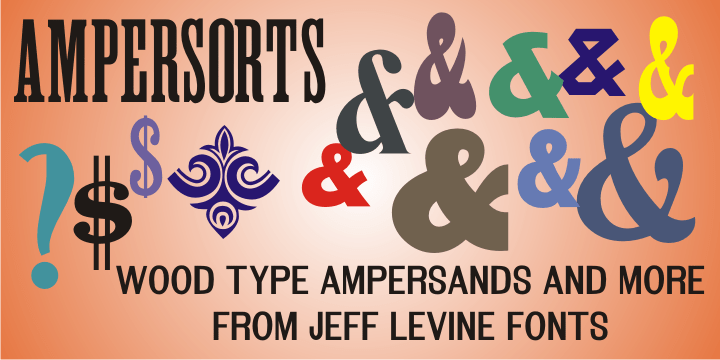
Ampersorts
Ampersorts JNL is a collection of many wood type ampersands along with a smattering of question marks, exclamation points, dollar signs and cent signs. A vintage wood type embellishment is alos included on the keystroke for the number 6.
Ampersorts JNL Regular by Jeff Levine Fonts